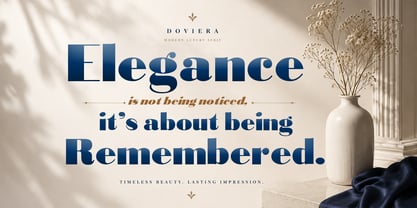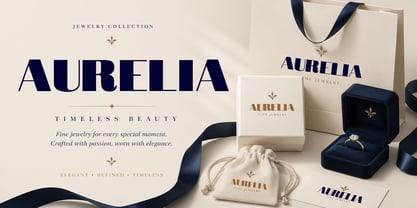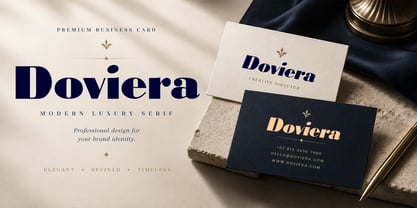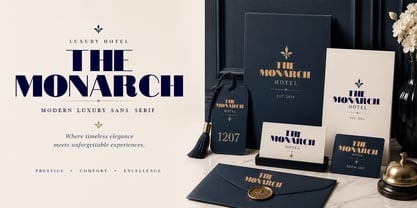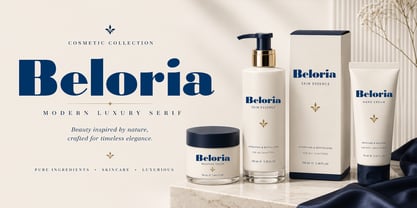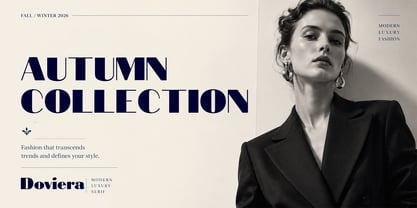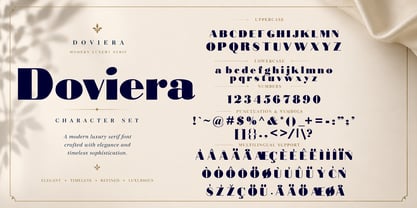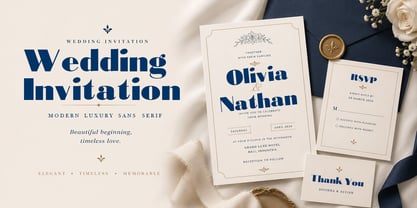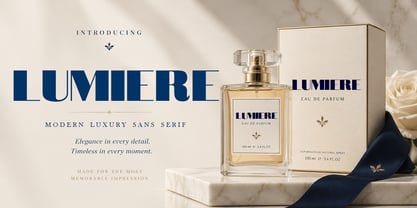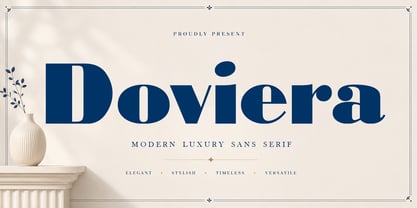
Doviera
The Doviera Font Family was designed by Teuku Saifullah and published by Shape Studio. Doviera contains 10 styles and family package options. More about this family
Doviera is a modern luxury sans serif font designed with bold, elegant, and sophisticated letterforms. Its distinctive high-contrast shapes and refined proportions create a strong visual identity while maintaining a clean and contemporary appearance.
Perfect for luxury branding, fashion editorials, beauty and cosmetics, jewelry, packaging, magazines, logos, invitations, posters, and premium business designs. Doviera brings a timeless and stylish character to both display typography and high-end branding projects.